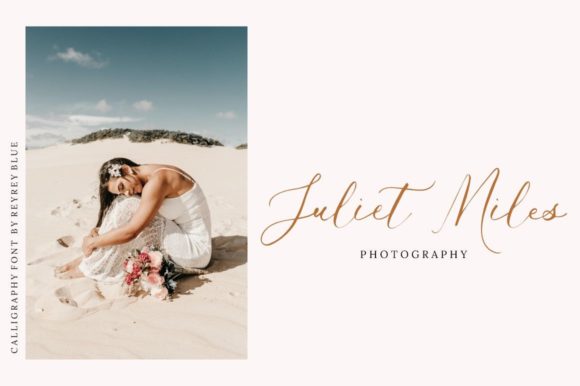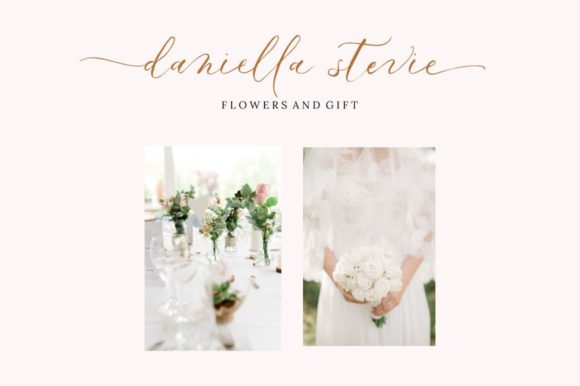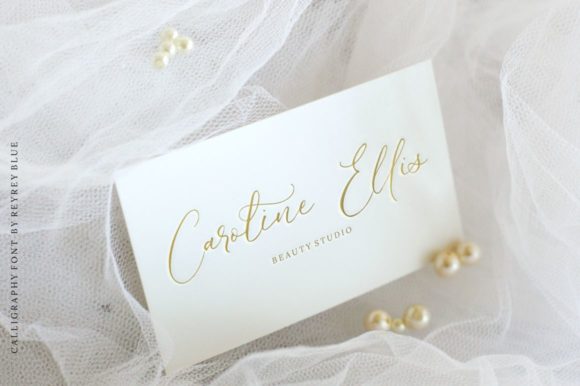
Introduction to Le Vangeline Font
Le Vangeline is a sweet and delicate handwritten font.
This font is PUA encoded which means you can access all glyphs and swashes with ease .
Le Vangeline Font offers exceptional quality and versatility, making it a valuable addition to your design toolkit. Whether you’re creating for personal projects or commercial use, Le Vangeline Font delivers professional results.